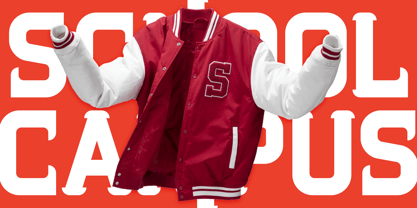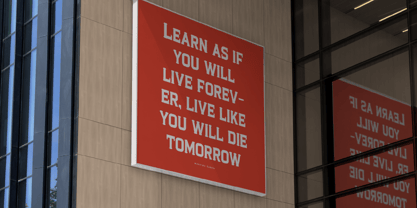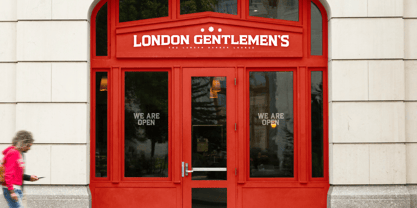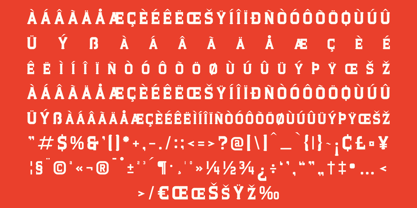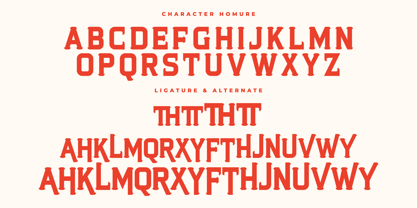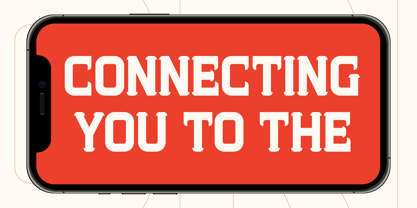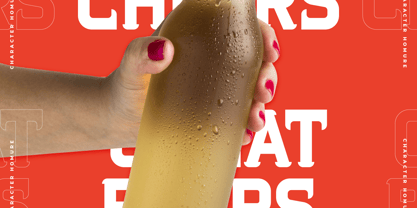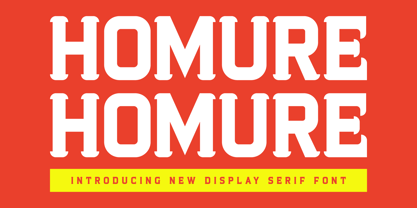
Homure
The Homure Font Family was designed by Heru Utama Putra and published by Letterena Studios. Homure contains 2 styles and family package options. More about this family
Homure is a bold and assertive serif font. No matter the topic, this font will be an incredible asset to your fonts' library, as it has the potential to elevate any creation.